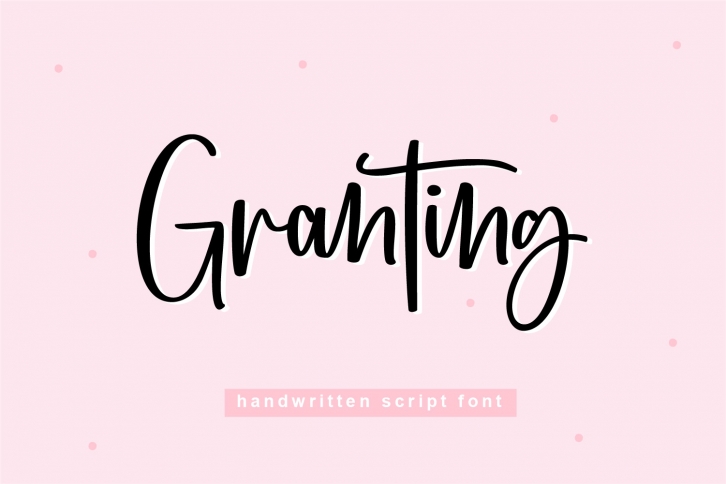
Granting is a beautiful and elegant handwritten font perfect for modern projects, headings, blogs, logos, brandings, invitations, and more! Add it to any creative project you can think of, and it will make them stand out!